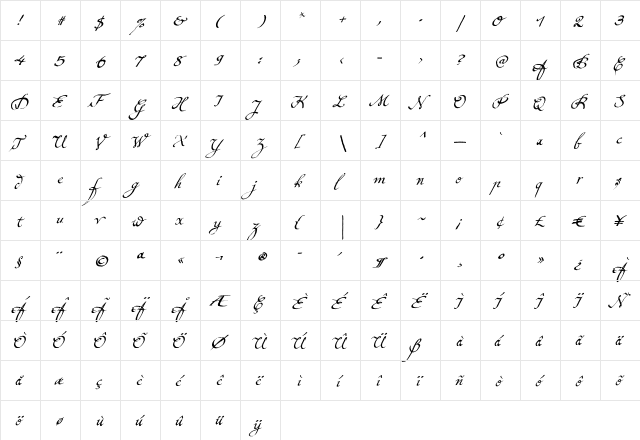
Konstantin Script Ce Regular
Design Context for Konstantin Script Ce Typeface
Konstantin Script Ce flows with the natural rhythm of handwritten lettering, making it ideal for designs that call for warmth and personal expression.
Font Pairing: Combine Konstantin Script Ce with a simple geometric sans for maximum contrast — the tension between flowing curves and clean structure is a classic typographic pairing.
Pro Tip: Use Konstantin Script Ce for short runs of text — names, titles, or taglines. Extended body copy in script faces tires the eye quickly.